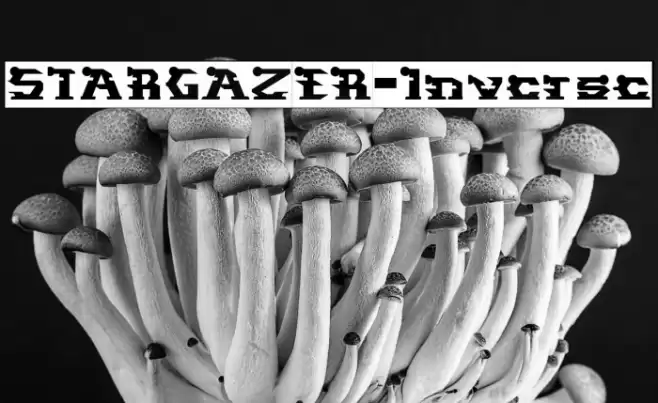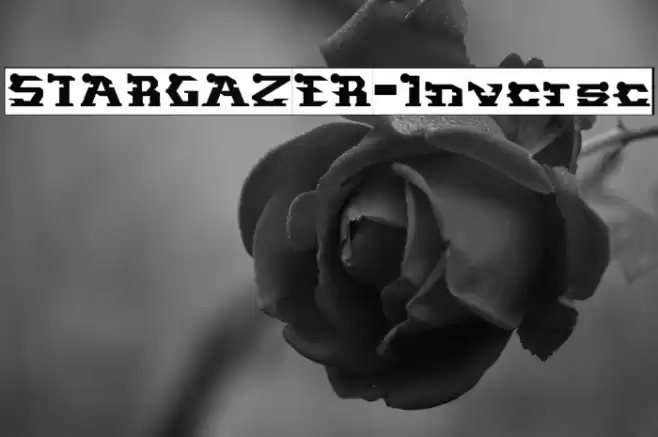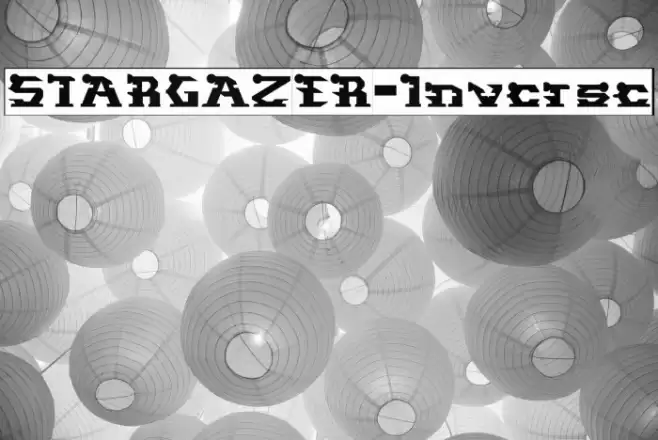
STARGAZER-Inverse Font
STARGAZER-Inverse Description
This font features a bold and striking design with a futuristic and geometric aesthetic. The characters are crafted with sharp angles and unique cutouts, creating a dynamic and edgy appearance. The uppercase and lowercase letters maintain a consistent style, while the numerals and special characters complement the overall design. The font's distinct look makes it suitable for projects that require a modern and eye-catching typeface.
A bold, futuristic font with sharp angles and geometric design from Uncategorized fonts.
- Proposed Projects: Ideal for sci-fi themed posters, video game graphics, and modern branding projects.